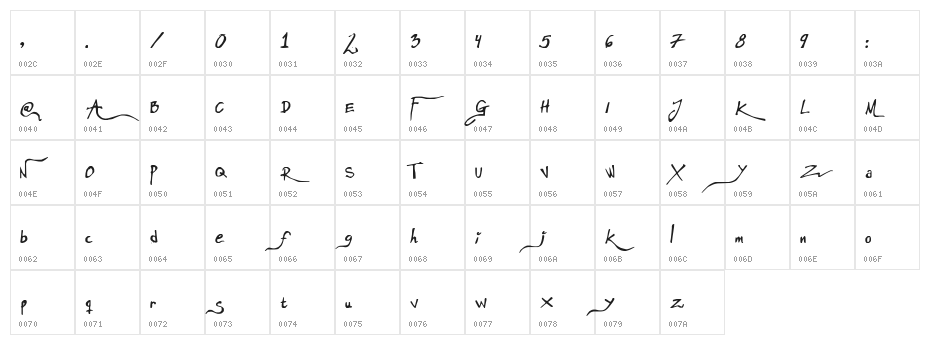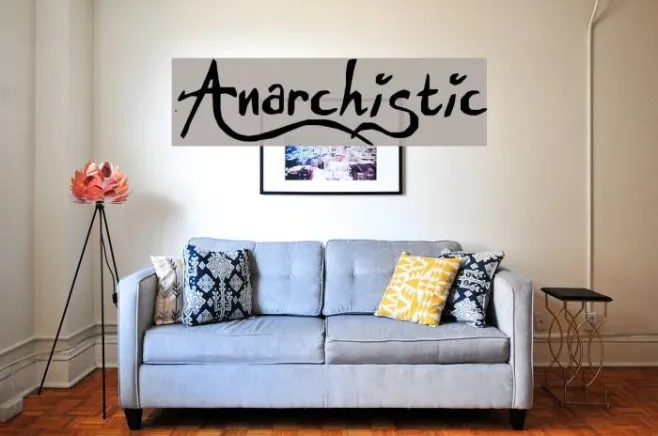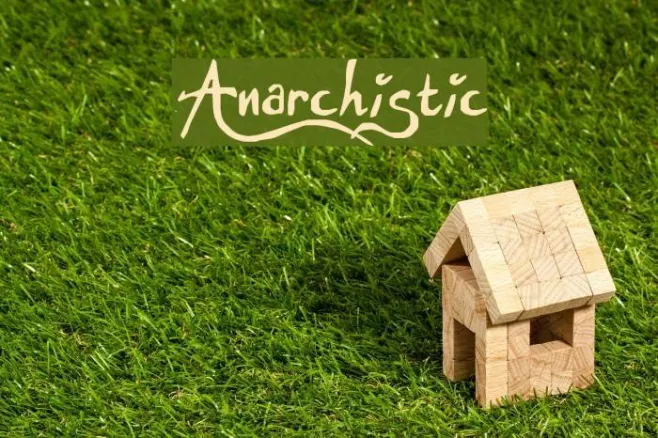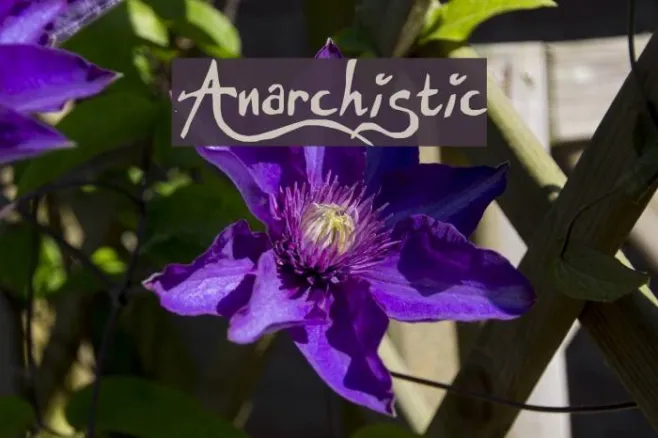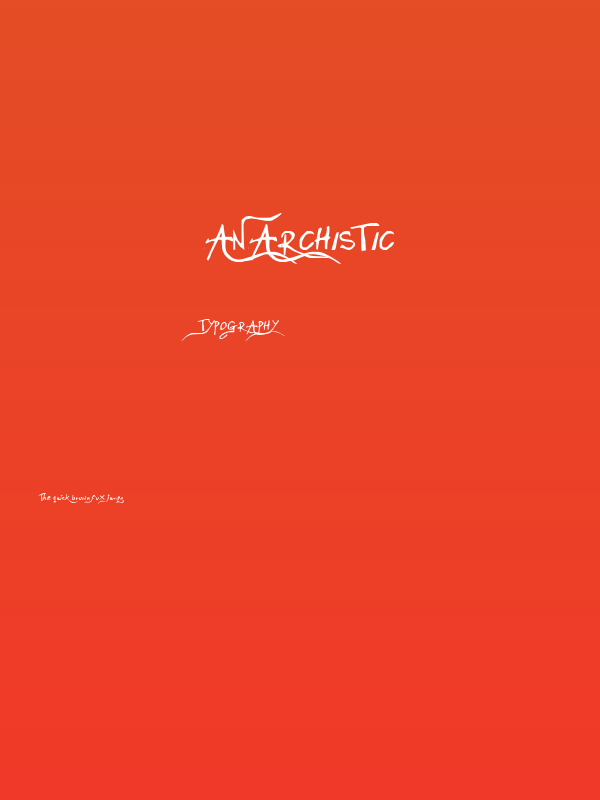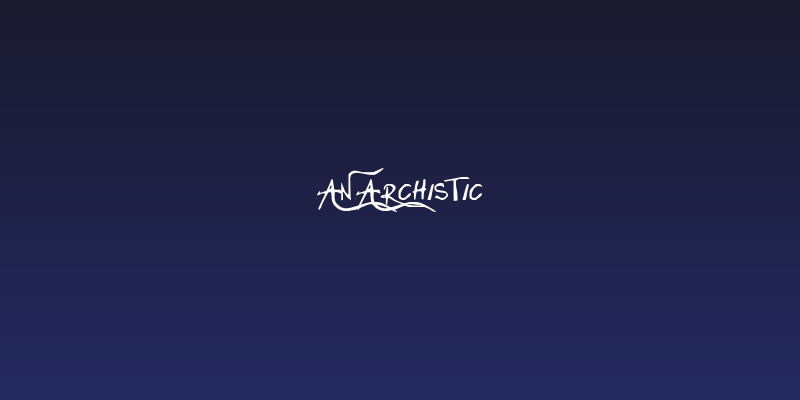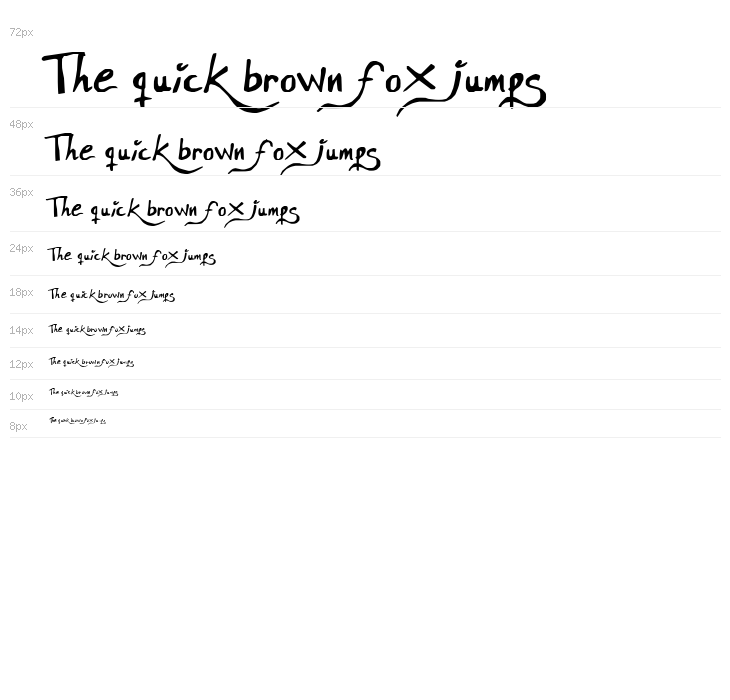
Anarchistic Font
Anarchistic Description
This font exhibits a rebellious and dynamic style, characterized by its irregular and jagged strokes that convey a sense of movement and energy. The uppercase letters are bold and angular, with varying line thicknesses that add a raw, hand-drawn feel. The lowercase letters maintain this edgy aesthetic, with unique curves and angles that create an unpredictable rhythm. The numbers follow suit, with each digit displaying its own distinctive flair. Special characters are crafted with the same attention to detail, enhancing the overall anarchistic theme. This font is perfect for projects that require a bold statement and a touch of unconventional creativity.
| Overall Style | Anarchistic, Edgy, Hand-drawn |
| Proposed Projects | Ideal for punk rock album covers, graffiti art, protest posters, and edgy branding materials. |